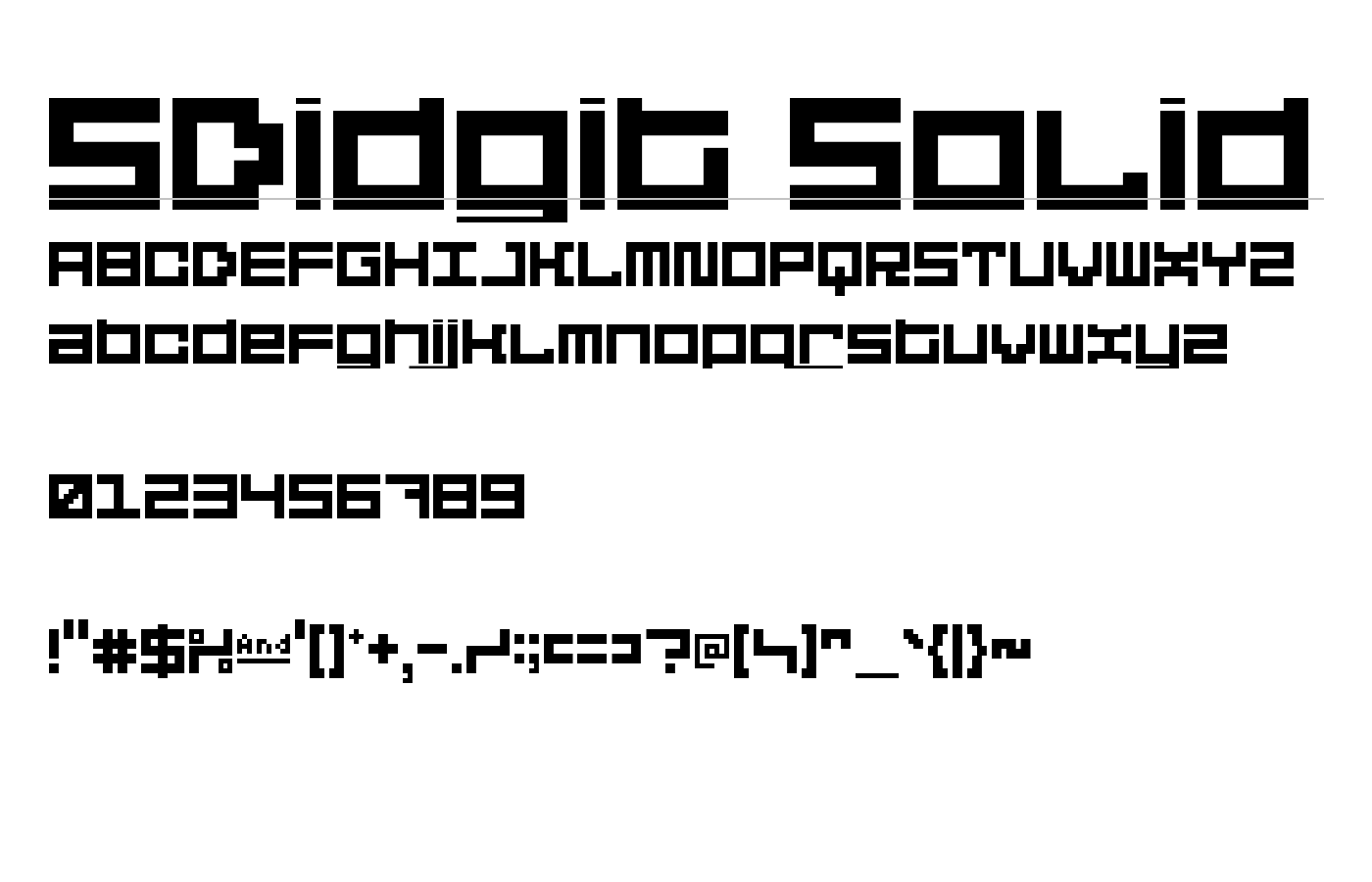
5Didgit Solid is a bold, geometric sans serif font characterized by its solid, blocky letterforms and pixel-inspired aesthetic. With a strong, uniform weight and squared shapes, it conveys a modern and tech-savvy feel perfect for digital-themed designs, headlines, and branding that seeks a distinctive, futuristic edge. Its clean, modular style makes it ideal for logos, posters, and user interfaces where clarity and impact are important.
5Didgit Solid Font
About 5Didgit Solid Font
| Font family | 5Didgit Solid Font |
| Designer | Noah - 10 year old typomaniac |